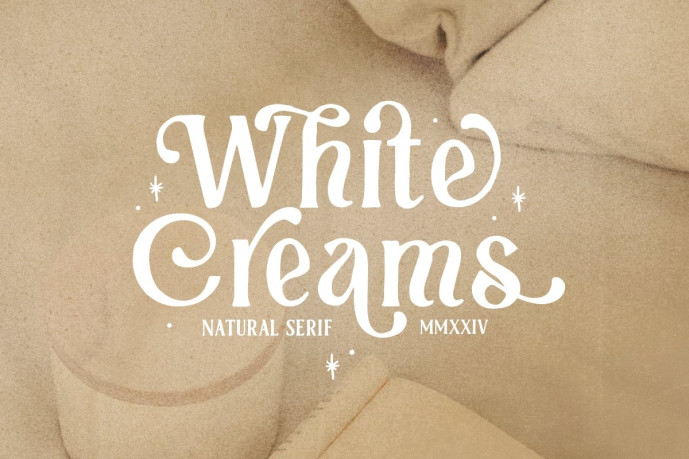
White Creams – Natural Serif Font
White Creams – Natural Serif Font  is a handmade serif with natural looks. Comes with bunch of alternates and ligatures that you can use to make your design more stunning. You can use this font for any purposes, such as branding, logo, quotes, instagram post, or wedding invitations.